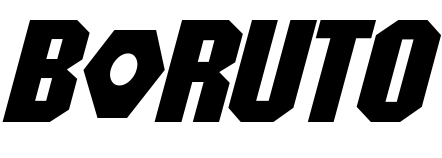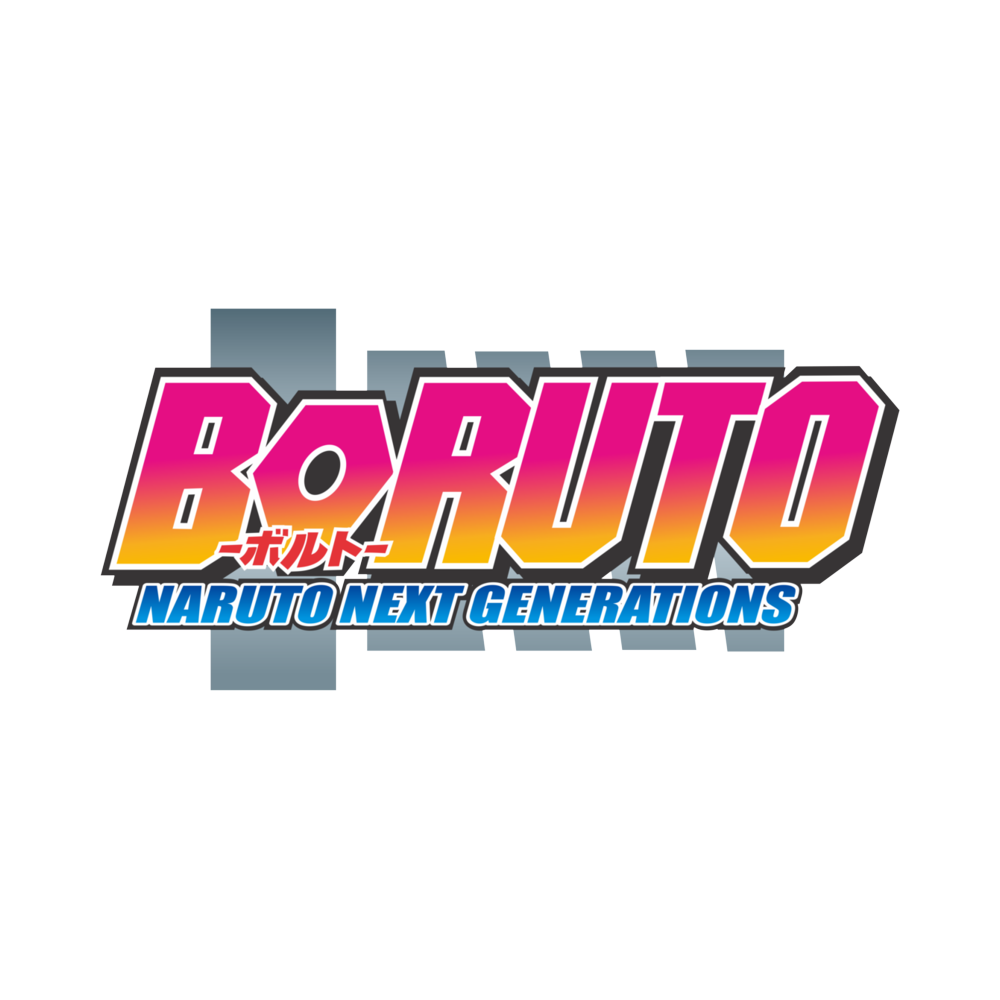
Boruto Font
AdventureBoruto is a Japanese manga and anime series that is a spin-off of the popular Naruto series. It follows the adventures of Boruto Uzumaki, the son of the main character of the original series, as he trains to become a ninja and tries to follow in his father's footsteps.
The font used in the Boruto logo is looks like a modified and slanted version of ITC Machine Font which is available to purchase here. FontGet has also created a fantastic replica called Boruto Font.